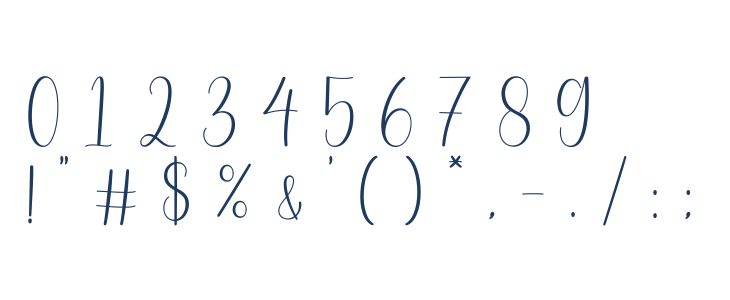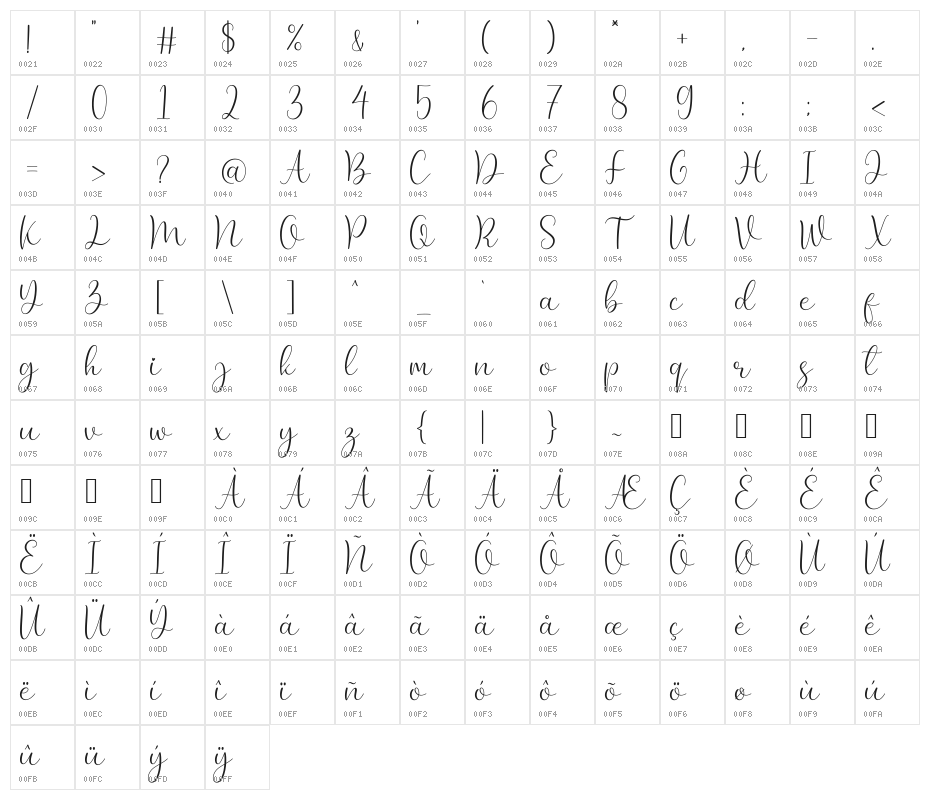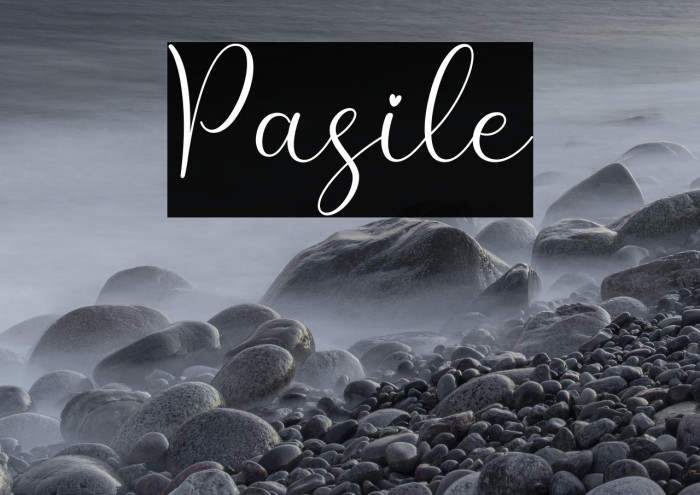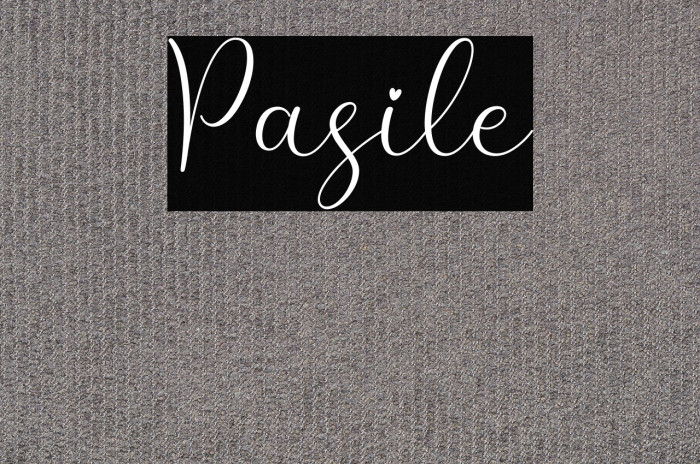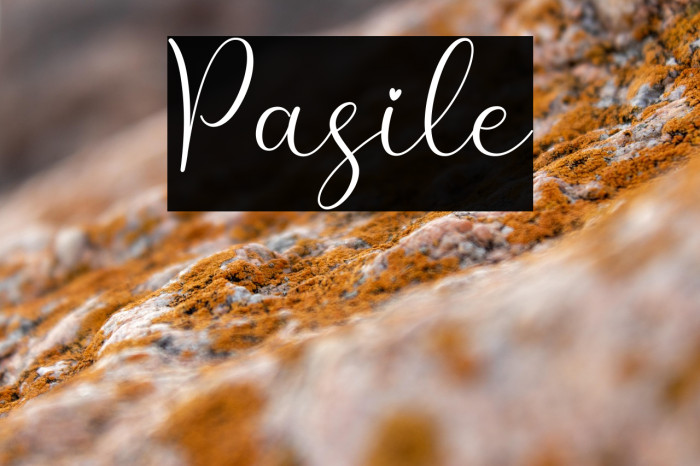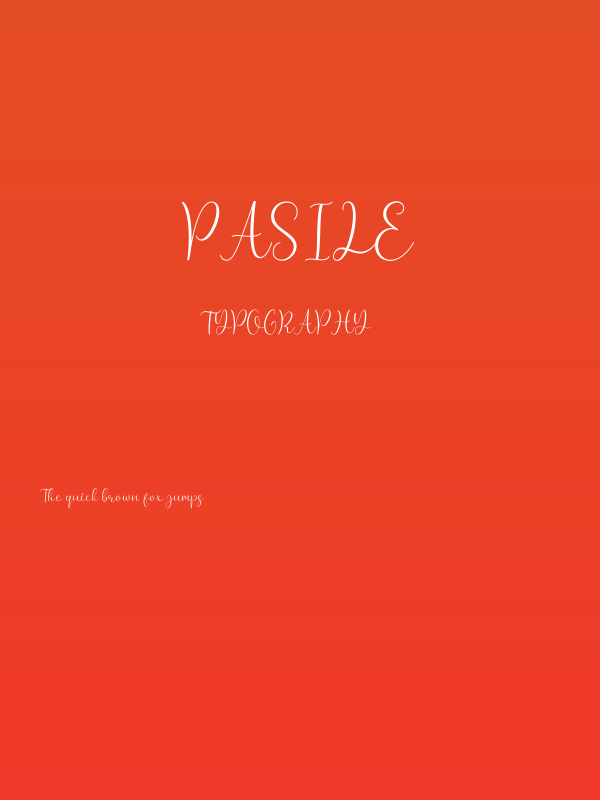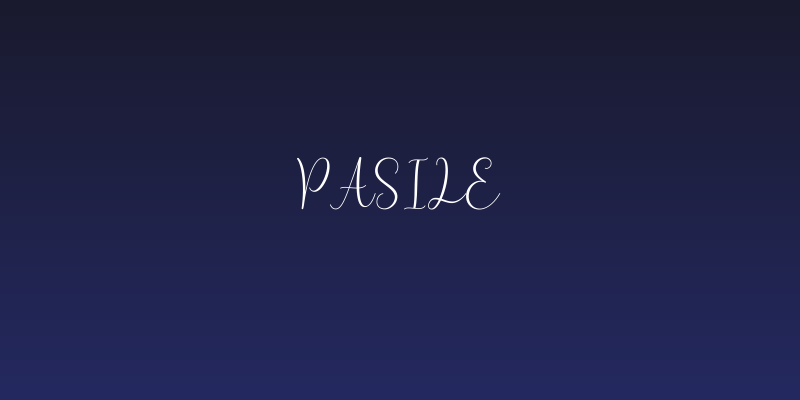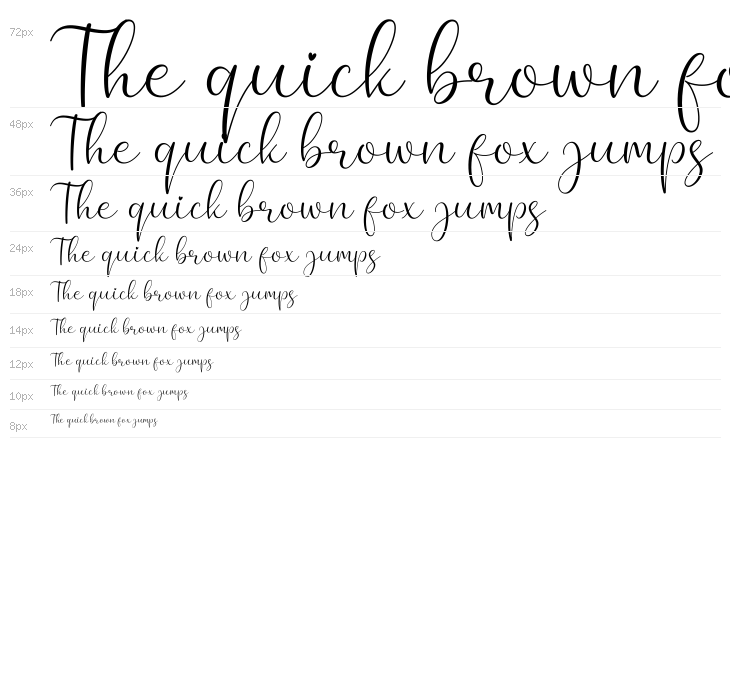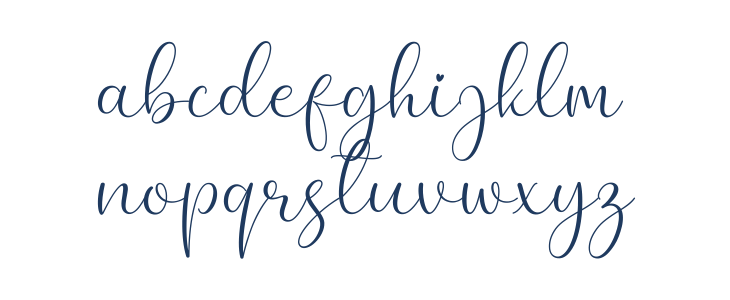
Pasile Font
Pasile Description
This elegant script font features a flowing, cursive style with a modern twist. The uppercase letters are tall and graceful, with sweeping curves and delicate loops that give them a sophisticated appearance. The lowercase letters maintain a consistent flow, with smooth connections between each character, enhancing readability while retaining an artistic flair. The numerals are distinct and stylish, complementing the overall aesthetic of the font. Special characters are thoughtfully designed, maintaining the font's cohesive look. This typeface is perfect for adding a touch of elegance and personality to any project.